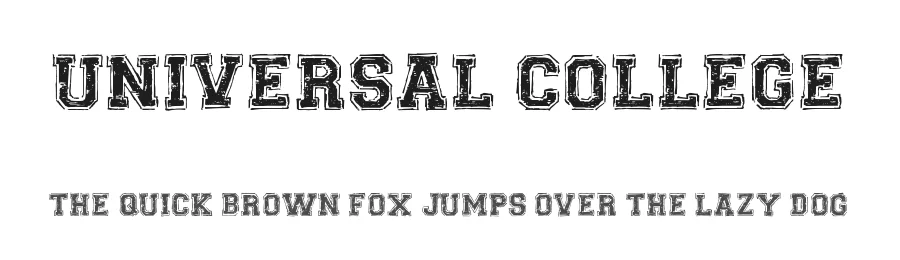
About College Freaks Font
Font: College Freaks
Type: Bold and Athletic
- Bold and athletic masterpiece with flavored textures
- Available in clean and destroy versions
- Available in uppercase and lowercase
College Freaks Font is a decorative font that shines as a display or heading face. Pair it with a clean sans-serif or serif font for body text β the contrast creates a clear hierarchy while the two styles stay balanced and easy to read.
College Freaks Font